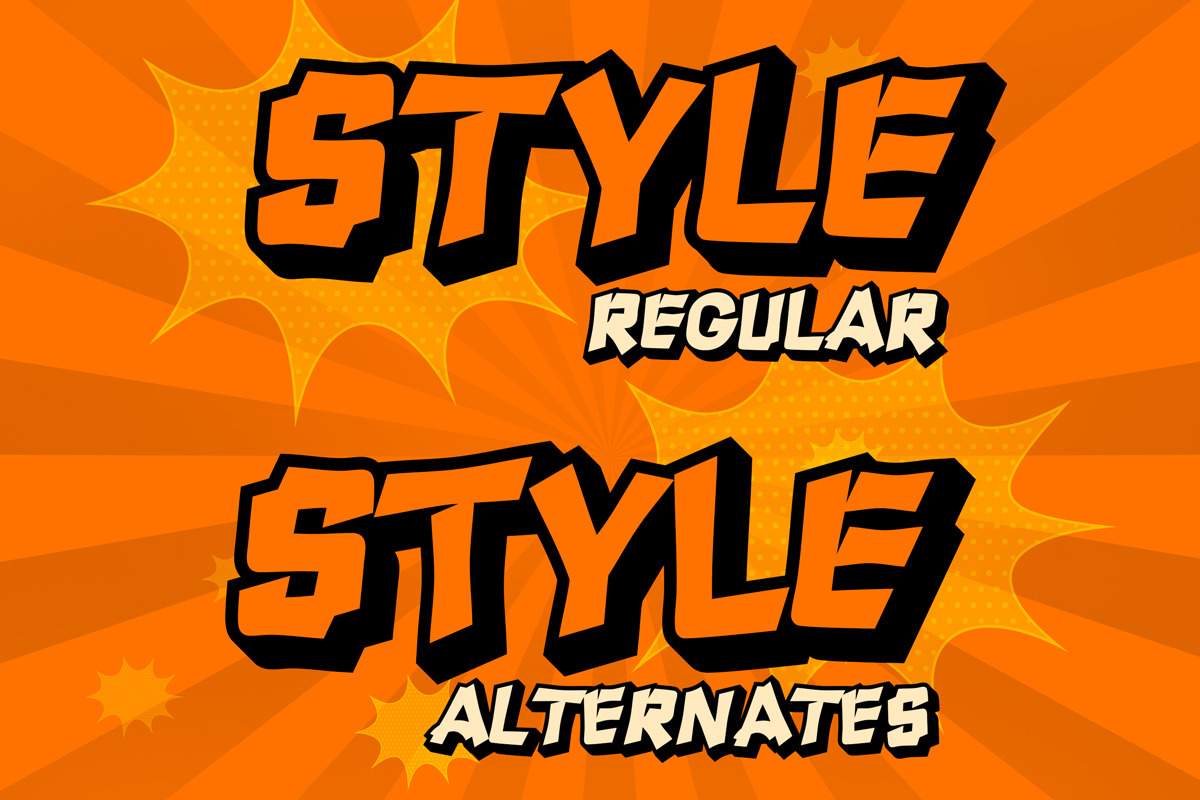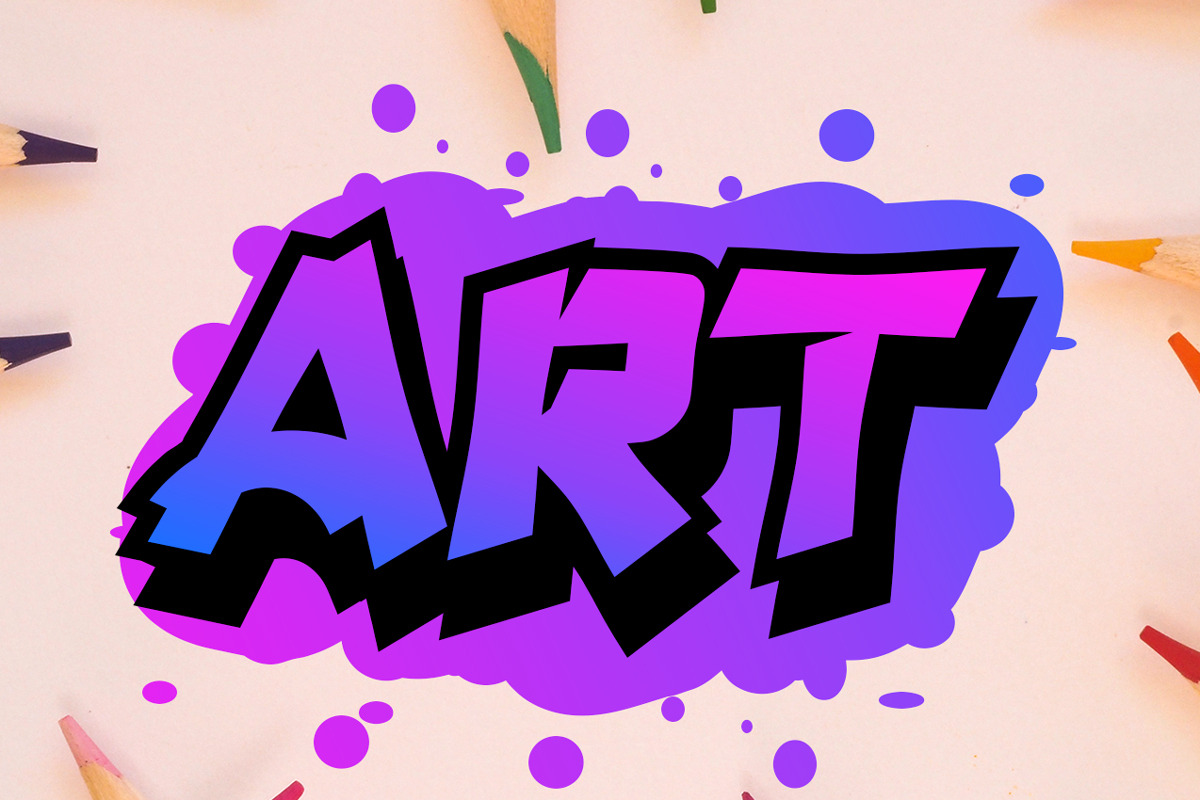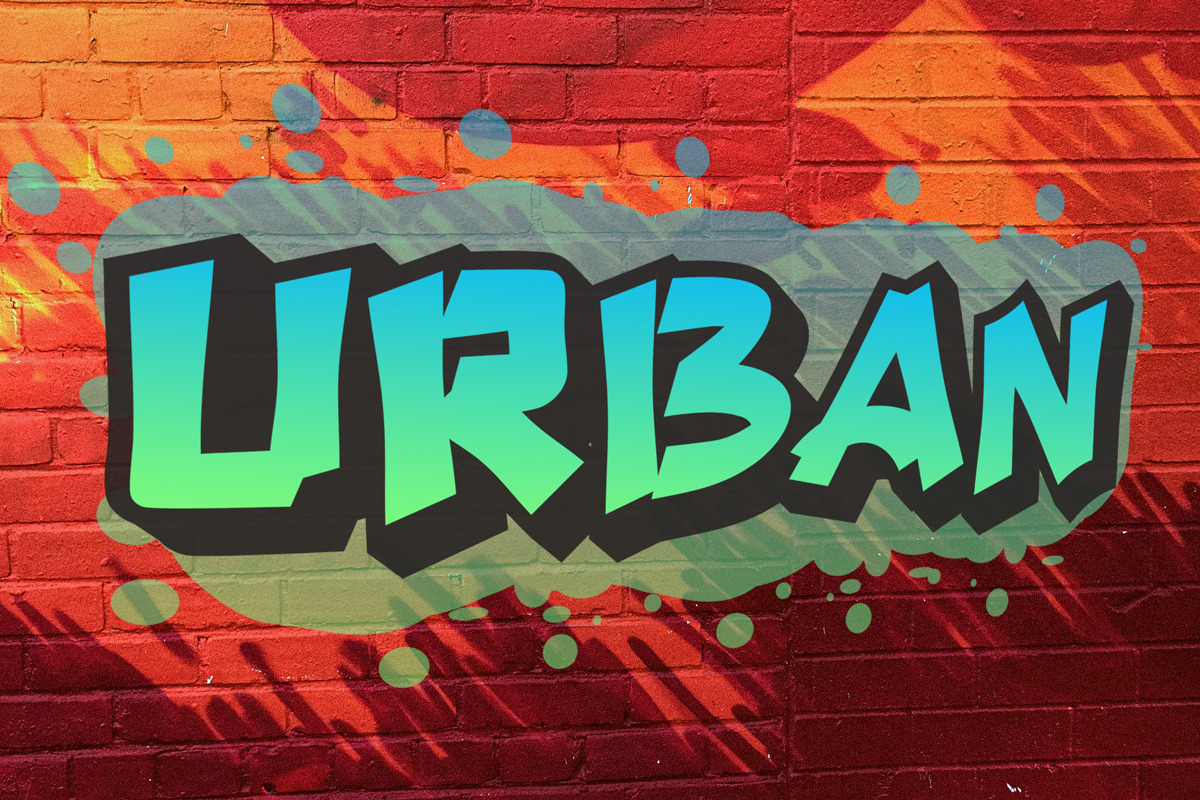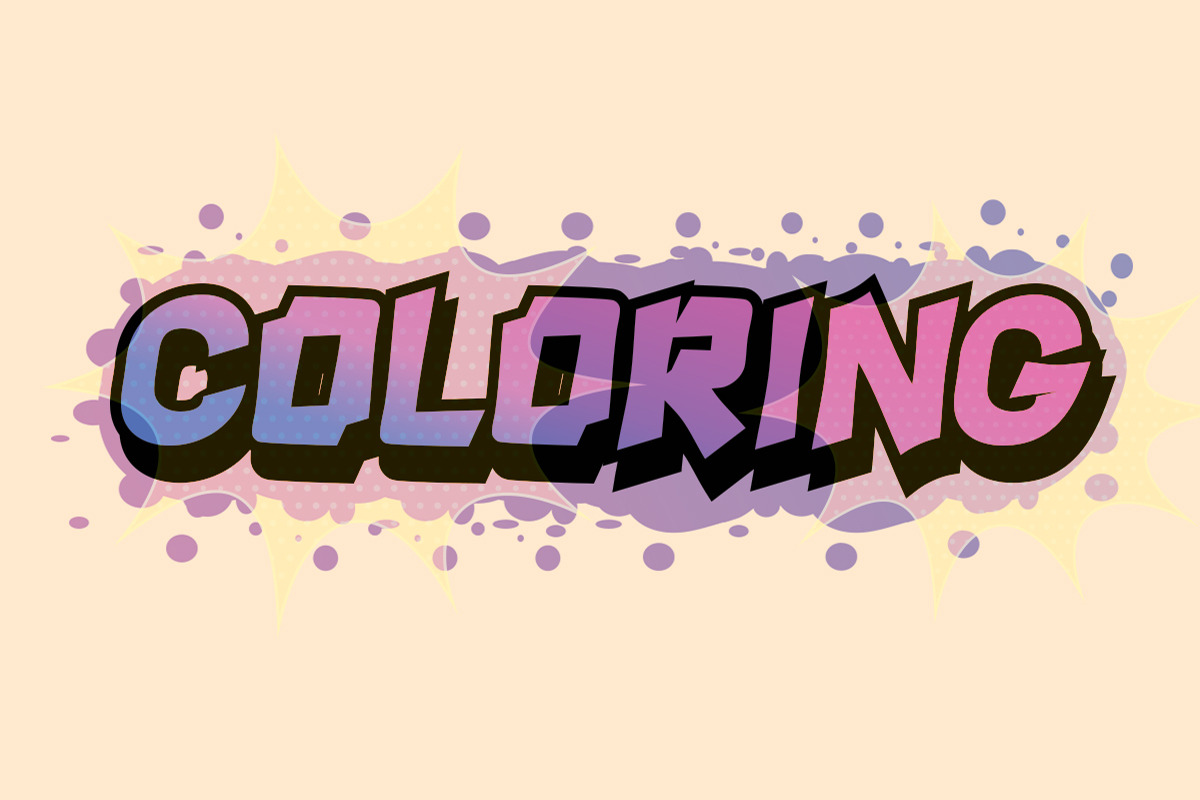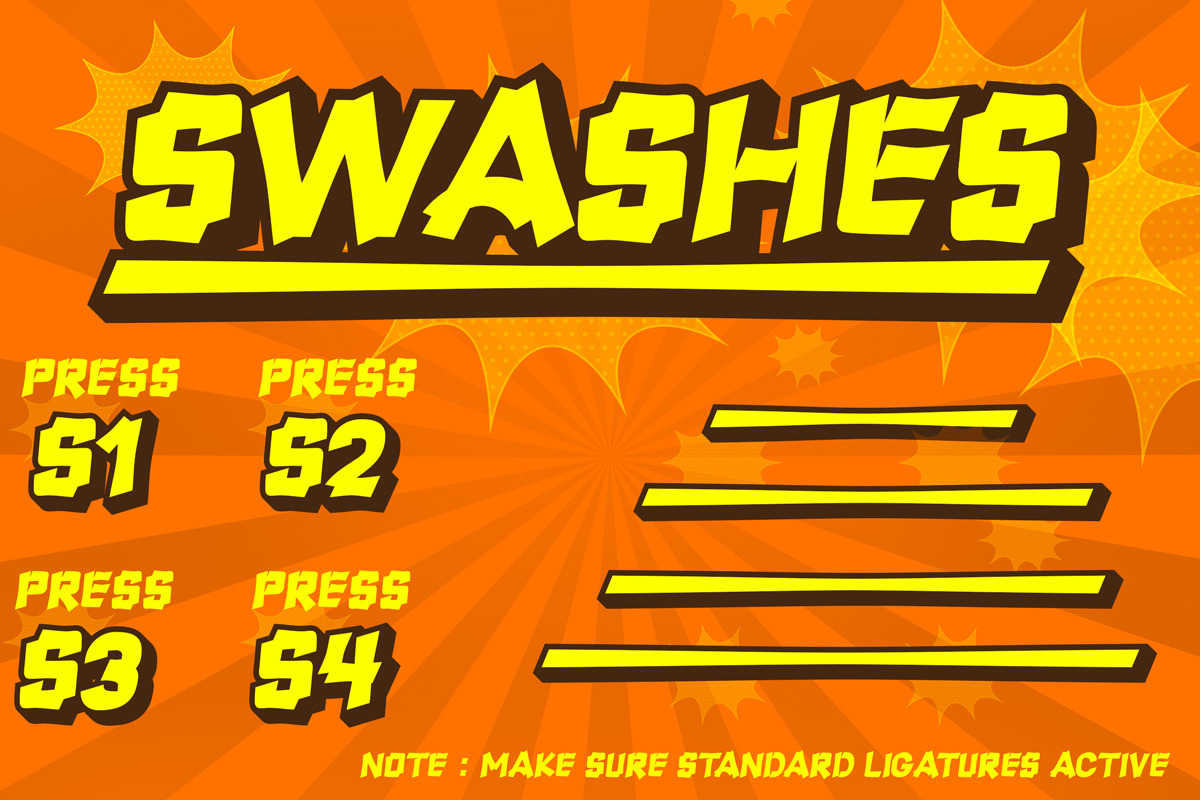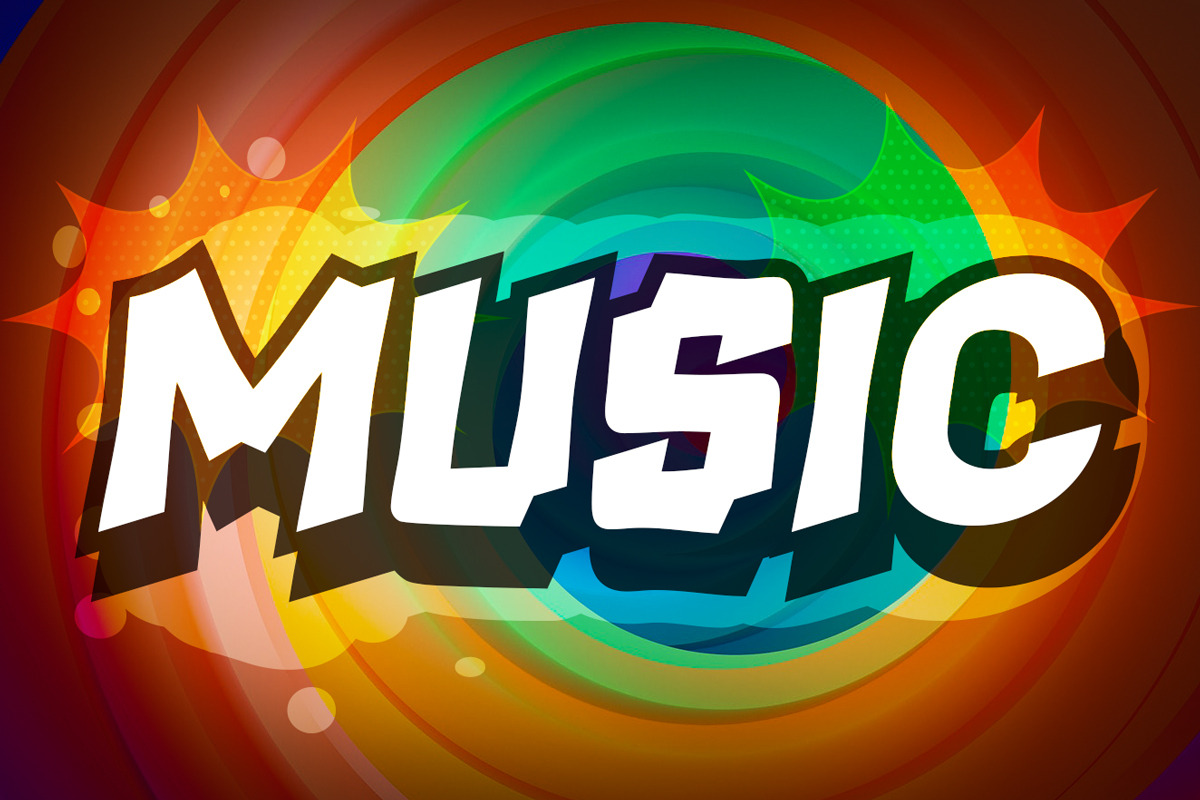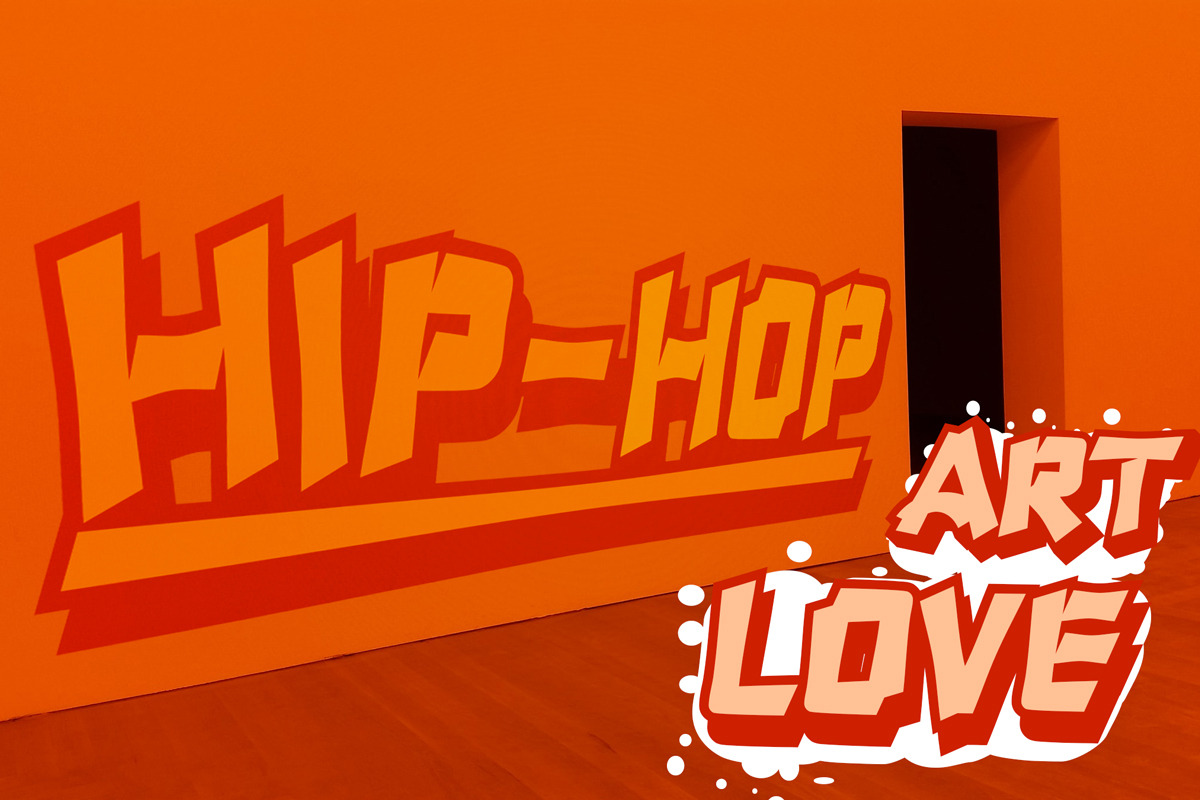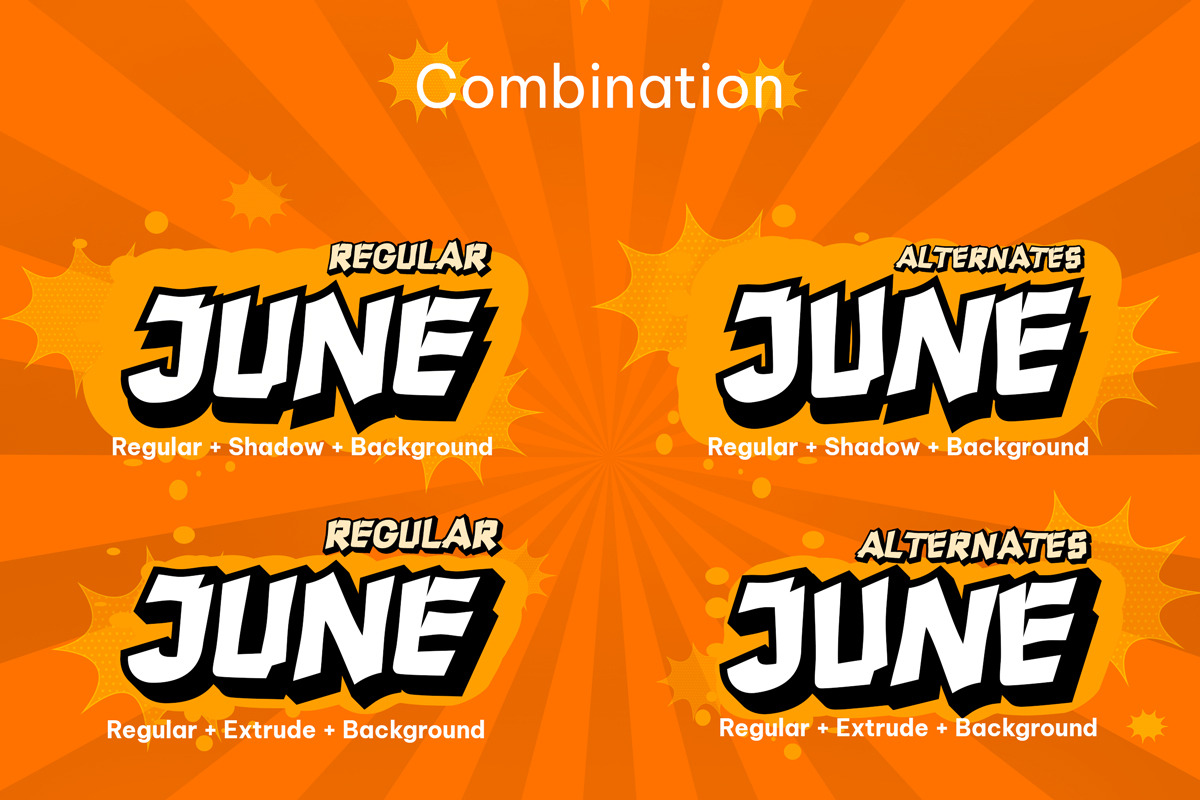
Maximal - display font
Maximal Font is a retro and bold display font. Add this font to your urban and casual creations and you will love the outcome. Font includes all lowercase and uppercase characters, numbers, punctuation, swashes, alternate ,an array of standard ligatures and a selection of international characters as well . This font is PUA encoded which means you can access all of the glyphs and swashes with ease! (please type the preview to see if I have what you need!)